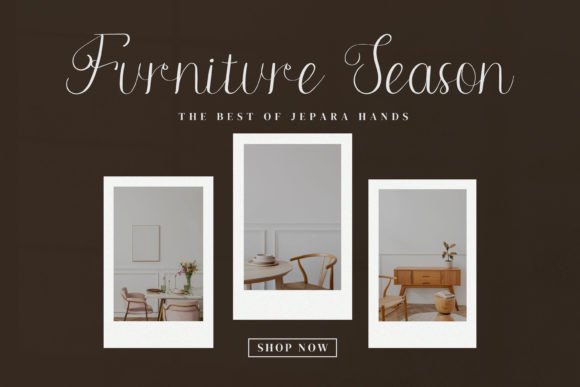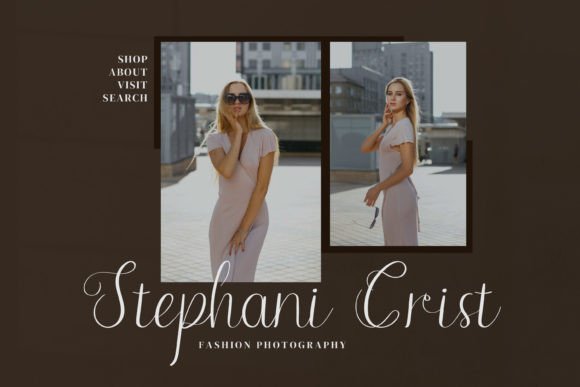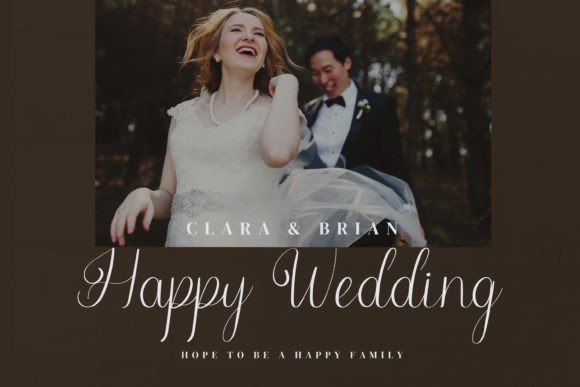
Introduction to Roccang Font
Imagine yourself scrolling through a high-end fashion magazine, mesmerized by the elegant typography that seems to dance across the pages. You can almost hear the whisper of luxury, the soft rustle of silk, and the subtle hint of sophistication. That’s the kind of creative moment that Roccang Font is designed to evoke.
As a designer, you know how important it is to have the right tools at your disposal. That’s why we’re excited to introduce you to Roccang Font, a luxurious and classy handwritten font that’s perfect for branding, upscale invitations, and high-end design projects. With its bold strokes and elegant curves, this font is sure to make a statement and elevate your creative project to the next level.
Key Features of Roccang Font
- High-quality font designed for creative projects, offering a unique and stylish design resource.
- Comes in a single weight, making it ideal for use in logos, headings, and other design applications.
Honest Review: Roccang Font
I recently had the chance to try out the Roccang Font, and I must say it’s a game-changer for my creative projects. As a designer, I’m always on the lookout for high-quality design resources that can elevate my work, and Roccang Font definitely delivers.
- ✨ High-quality design: The font is crisp and clean, with a unique aesthetic that sets it apart from other fonts in my collection.
While I was impressed with the Roccang Font, I did encounter a few limitations. ⚠️ One of the main issues is that the font is not as versatile as I would have liked, with limited options for customization. Additionally, the font may not be suitable for all types of creative projects, particularly those that require a more traditional or formal look.
Overall, I’m impressed with the Roccang Font and would definitely recommend it to designers looking for a unique and high-quality font for their creative projects. With a little creativity, I’m sure you can find plenty of ways to use this font to take your designs to the next level!